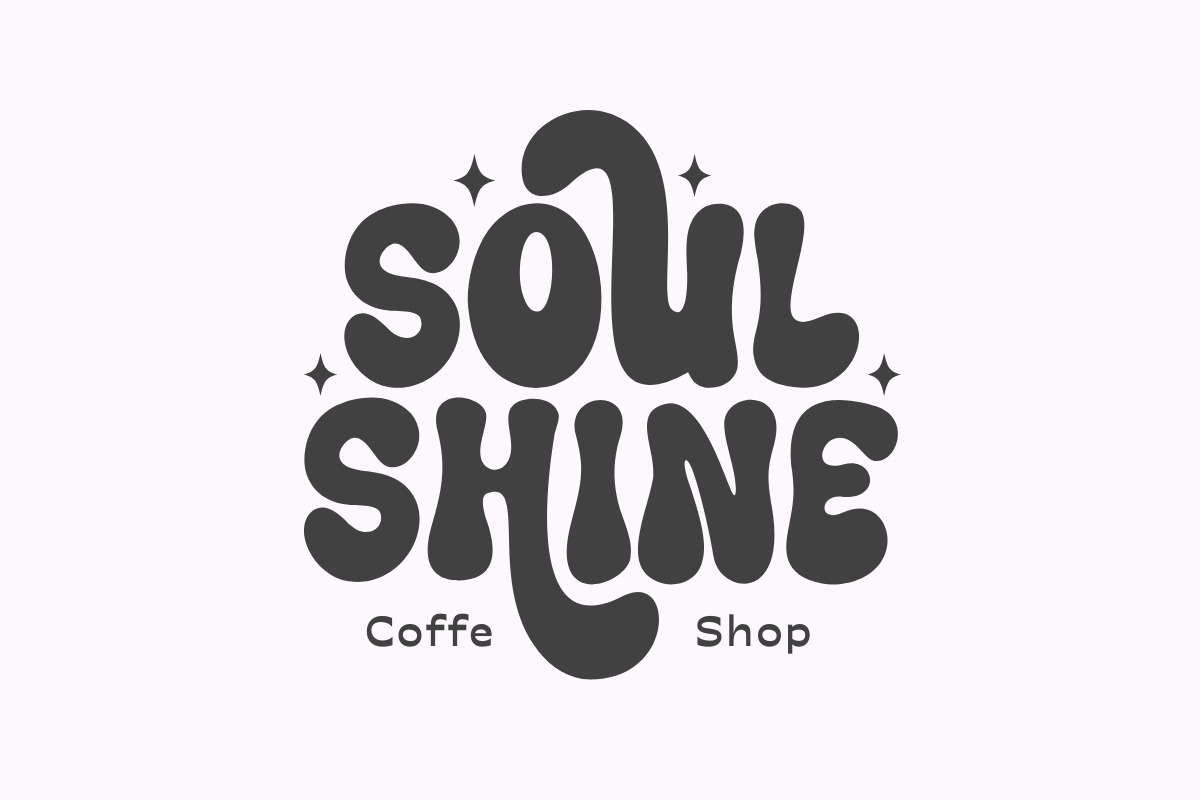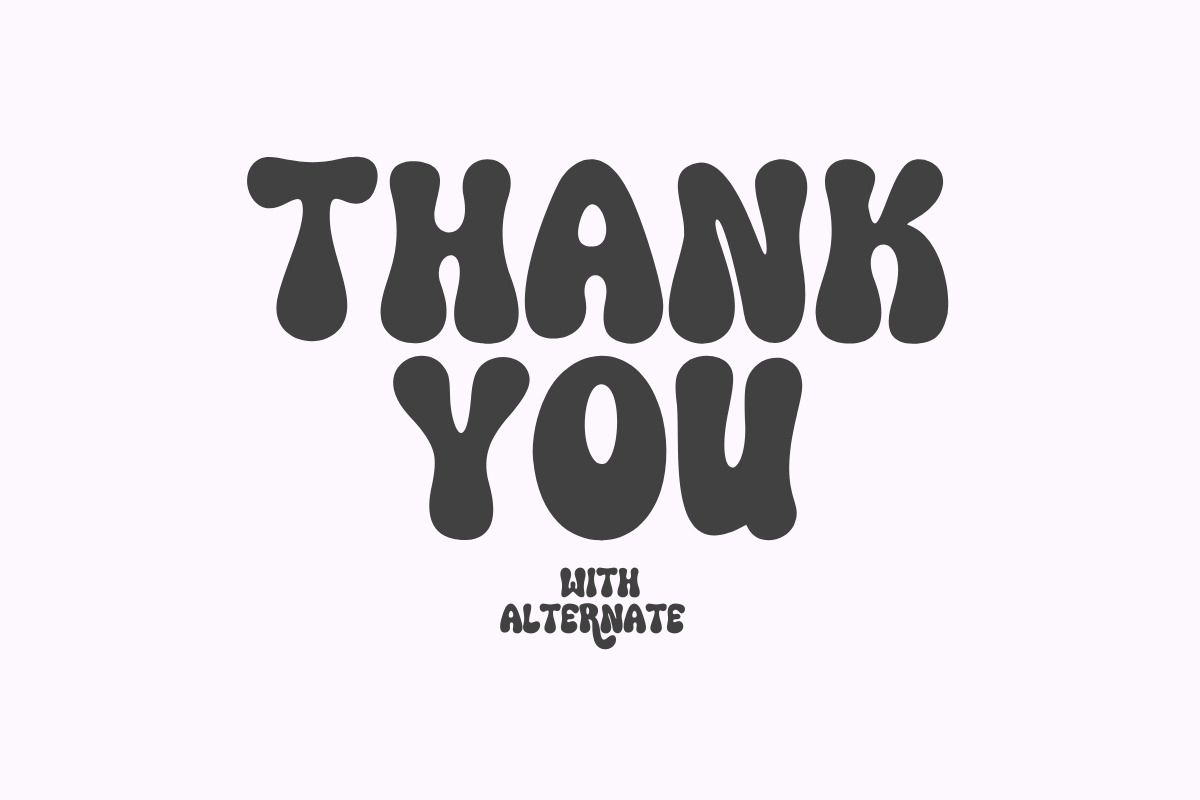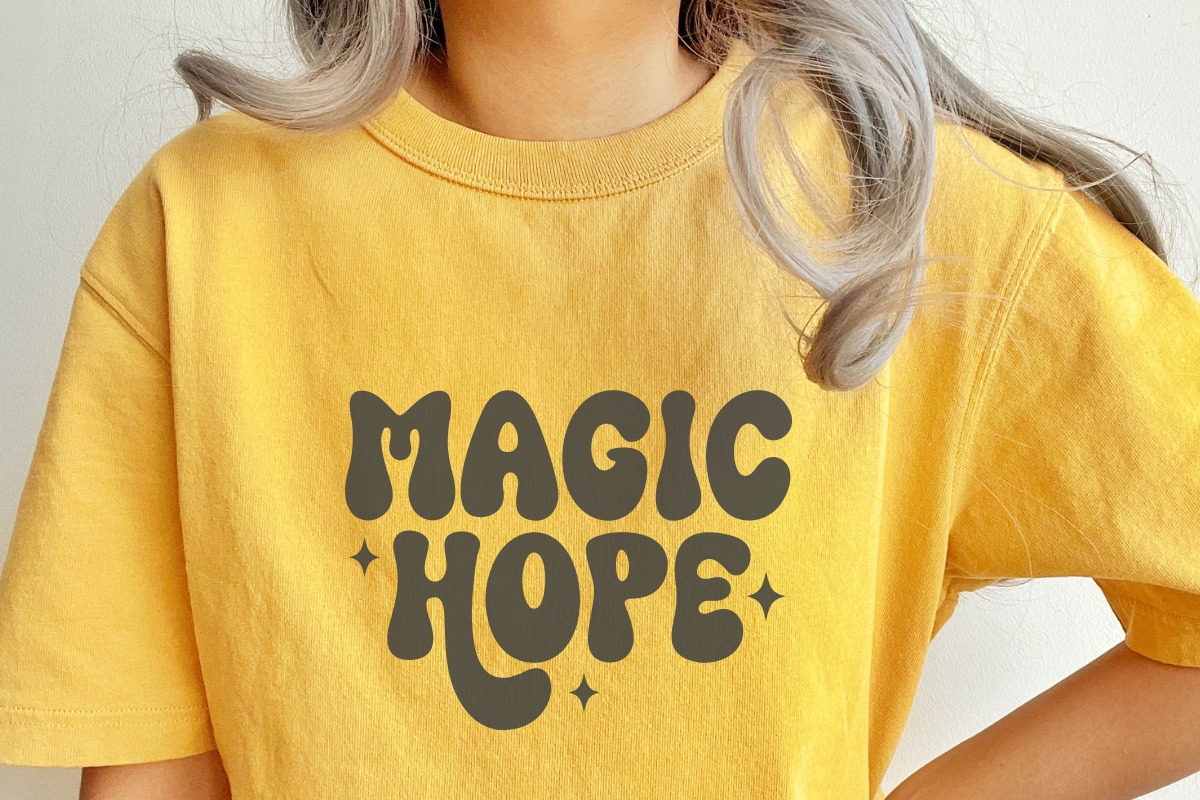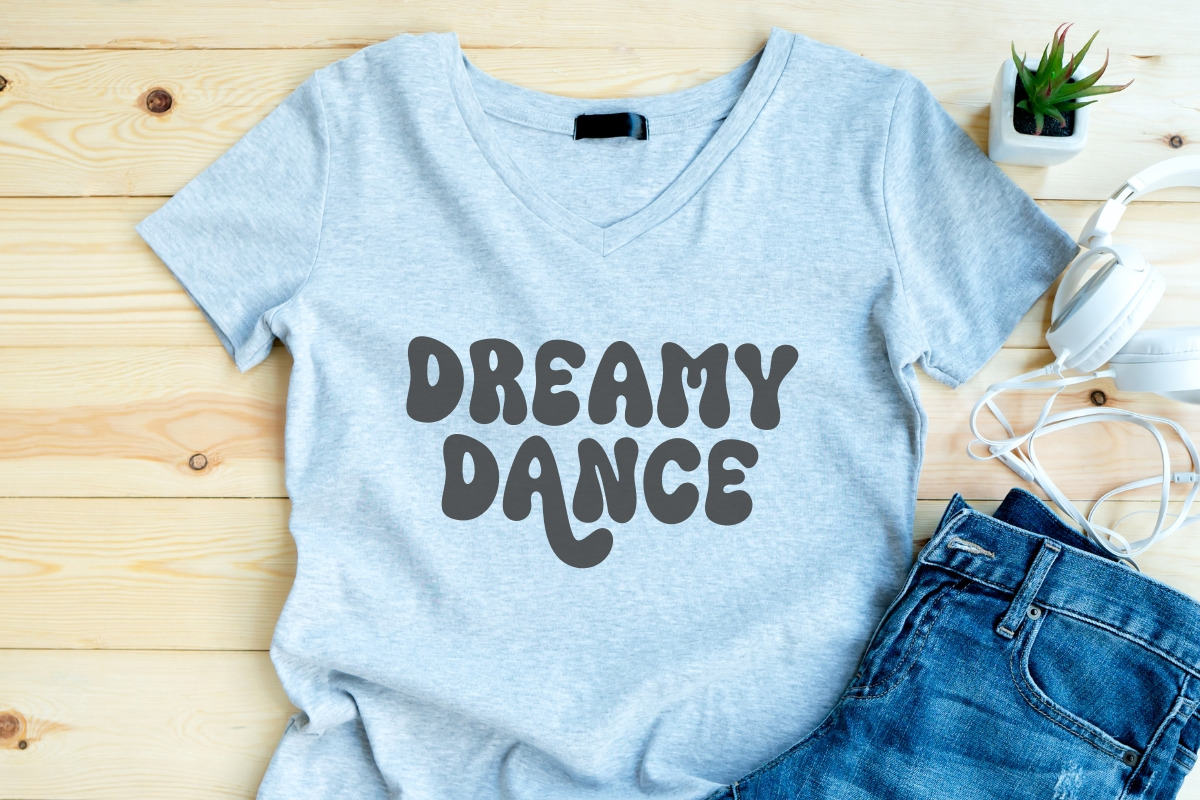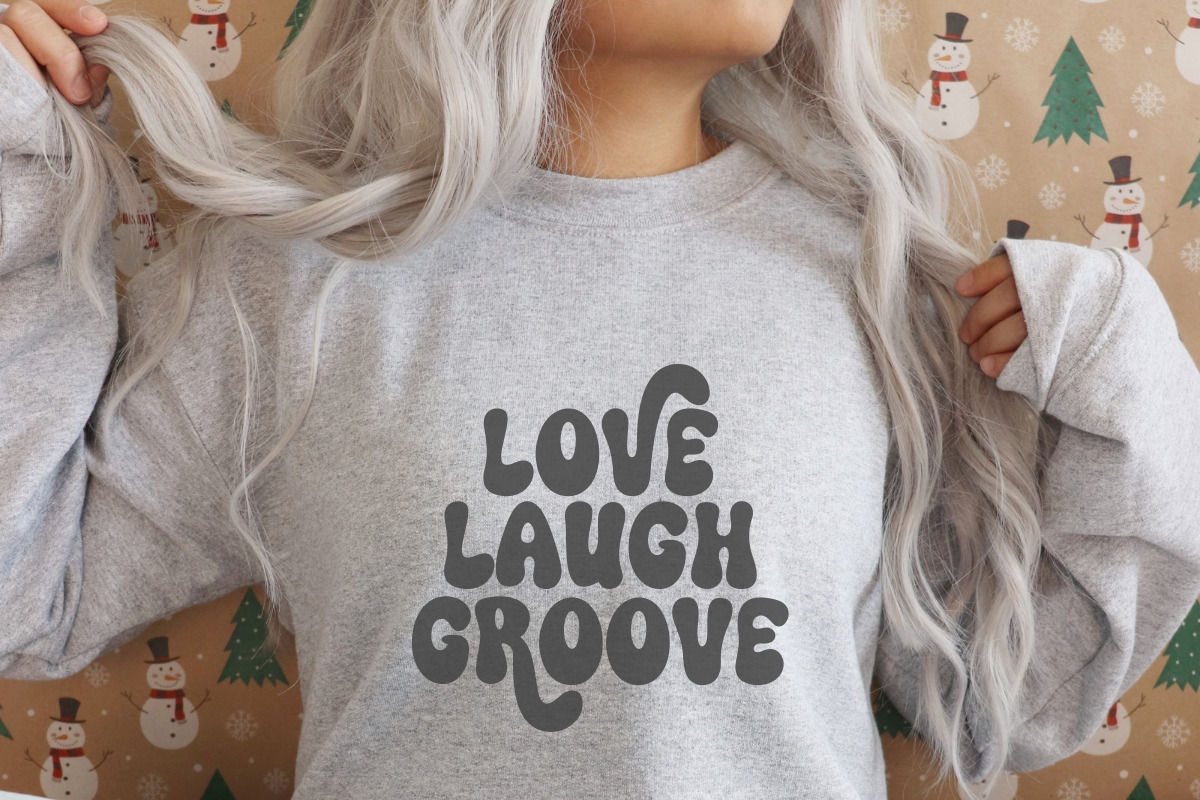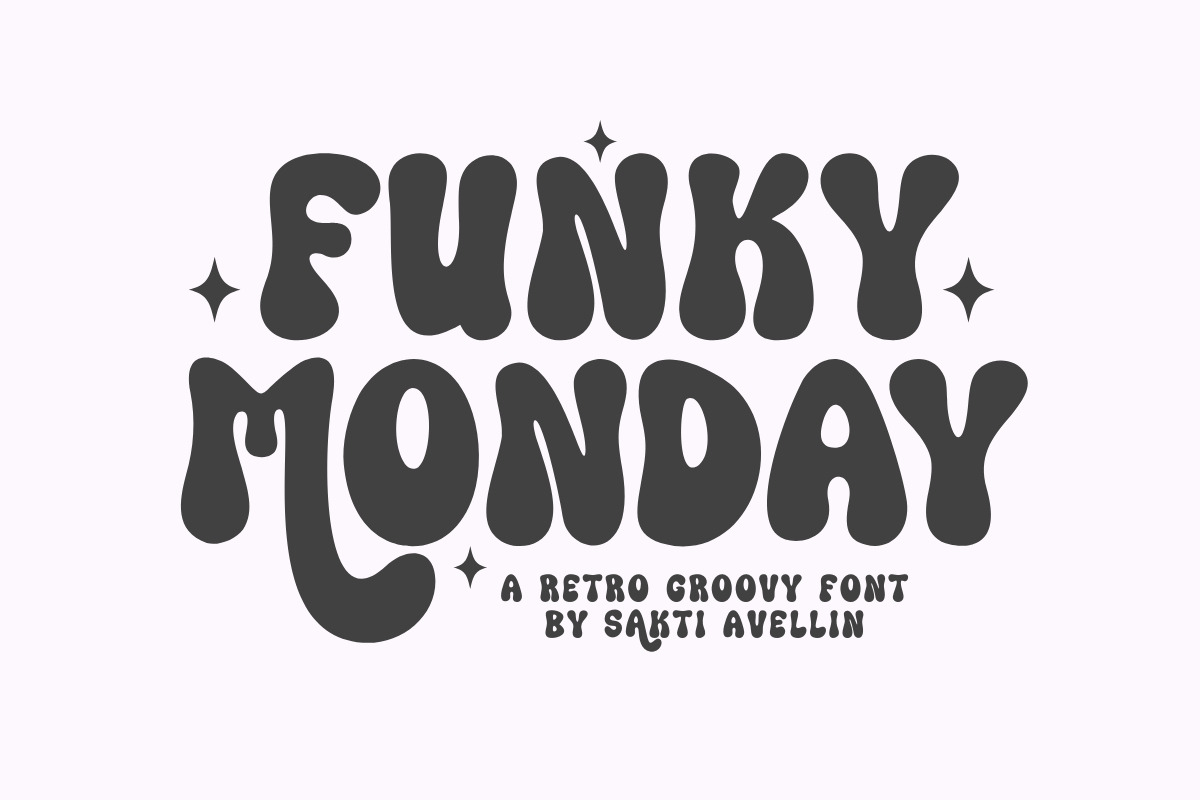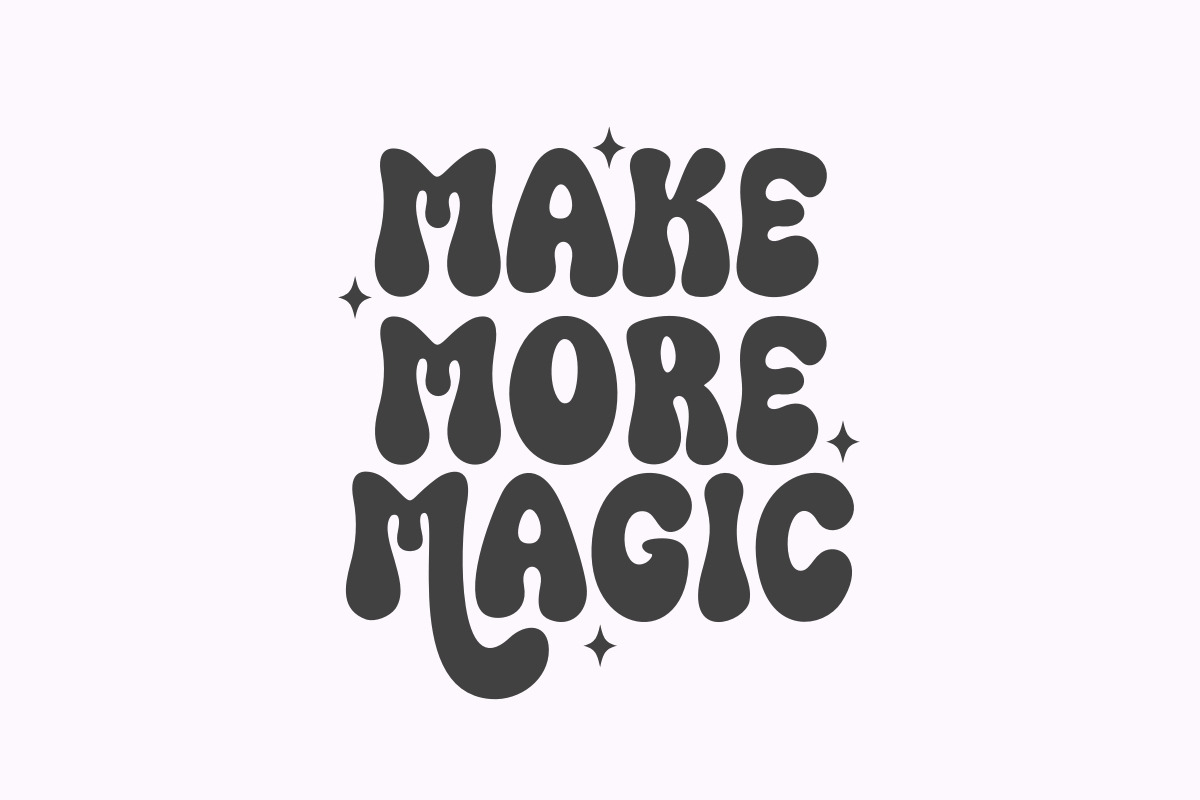
Funky Monday - Retro Groovy Font
Funky Monday is a vibrant, bold, and high-impact retro groovy font designed to inject a soulful 1970s energy into your creative projects. This bubbly display typeface features thick, wavy letterforms with a rhythmic, psychedelic bounce, making it an essential choice for retro branding, funky t-shirt prints, vintage posters, and eye-catching social media graphics. Its unique, liquid-like silhouette ensures it stands out as a powerful decorative font for headlines and product packaging, perfect for designers looking for a mix of disco-era charm and modern aesthetic funk. Elevate your designs with the vibrant and nostalgic spirit of Funky Monday!